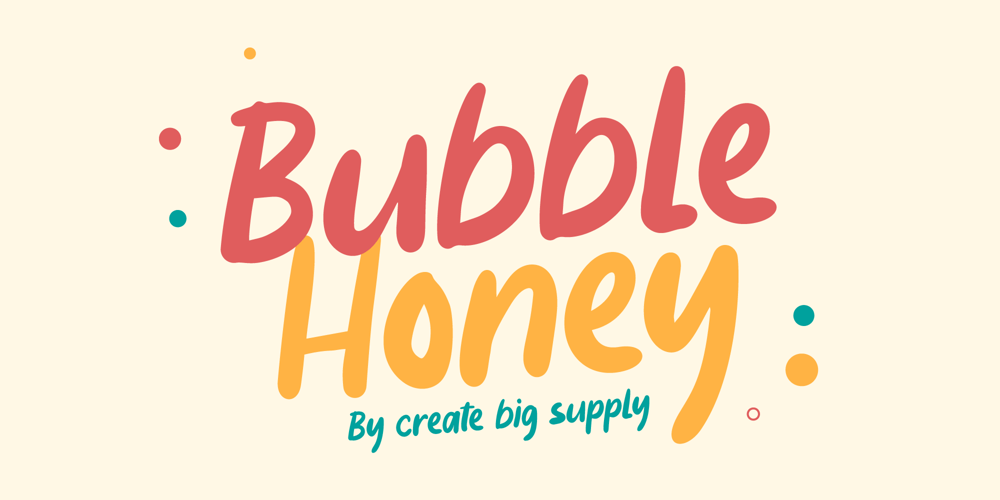
Bubble Honey
Bubble Honey font
Bubble Honey Font Family was designed by Irpan Maulana and published by Create Big Supply. Bubble Honey contains 1 styles and family package options. Bubble Honey Font is a cute and fun display font. This will add a cheerful, happy touch to your design. Features: Uppercase & lowercase Numbers and punctuation Multilingual PUA Encoding Full Character Set!”#$%&()*+,-./0123456789:;<=>?@ABCDEFGHIJKLMNOPQRSTUVWXYZ[]^_`abcdefghijklmnopqrstuvwxyz{}~ ¡¢£¤¥§¨©ª«­®°±²³´¸¹º»¿ÀÂÃÄÅÆÇÈÉÊËÌÍÎÏÑÒÓÔÕÖרÙÛÜÝßàáâãäåæçèéêëìíîïñòóôõö÷øùúûüýÿıŒœŠšŸžˆˇ˚˜–—‘’“”†•‹›€−